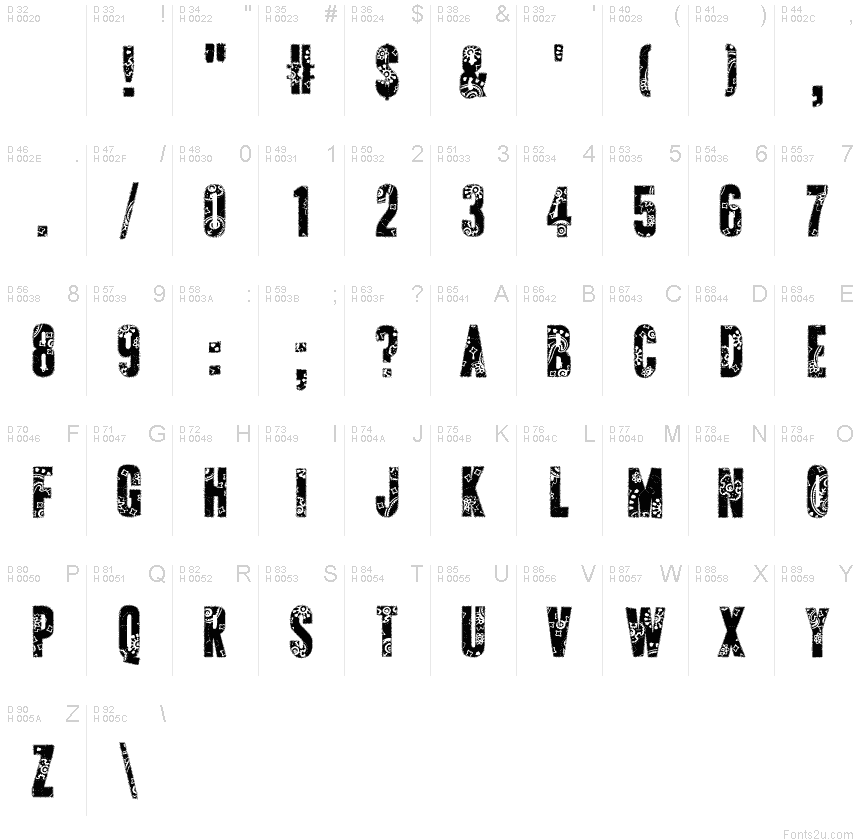
AP Applique Stitched by Arcane Palette Creative Design is a free stitched applique display font built from hefty, irregular caps. Ragged edges, dotted seams, floral scraps, and small star-shaped patches make the letters resemble hand-cut fabric. Each character feels individually decorated by hand.
Children's clothing labels and craft packaging can use its sewn construction as part of the product story, and the same rough textile look suits folk-music posters and handmade event graphics. It is especially apt for makers, family-focused brands, and audiences drawn to patchwork, quilting, or do-it-yourself culture.